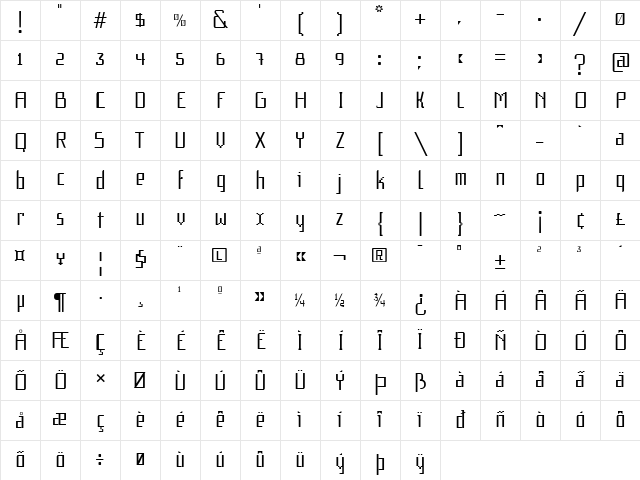
f1 Secuencia Quad ffp Regular
Foundry: deFharo
Designer: deFharo
Design Context for f1 Secuencia Quad ffp
f1 Secuencia Quad ffp is a composed and adaptable typeface that performs quietly and consistently across a wide range of design contexts.